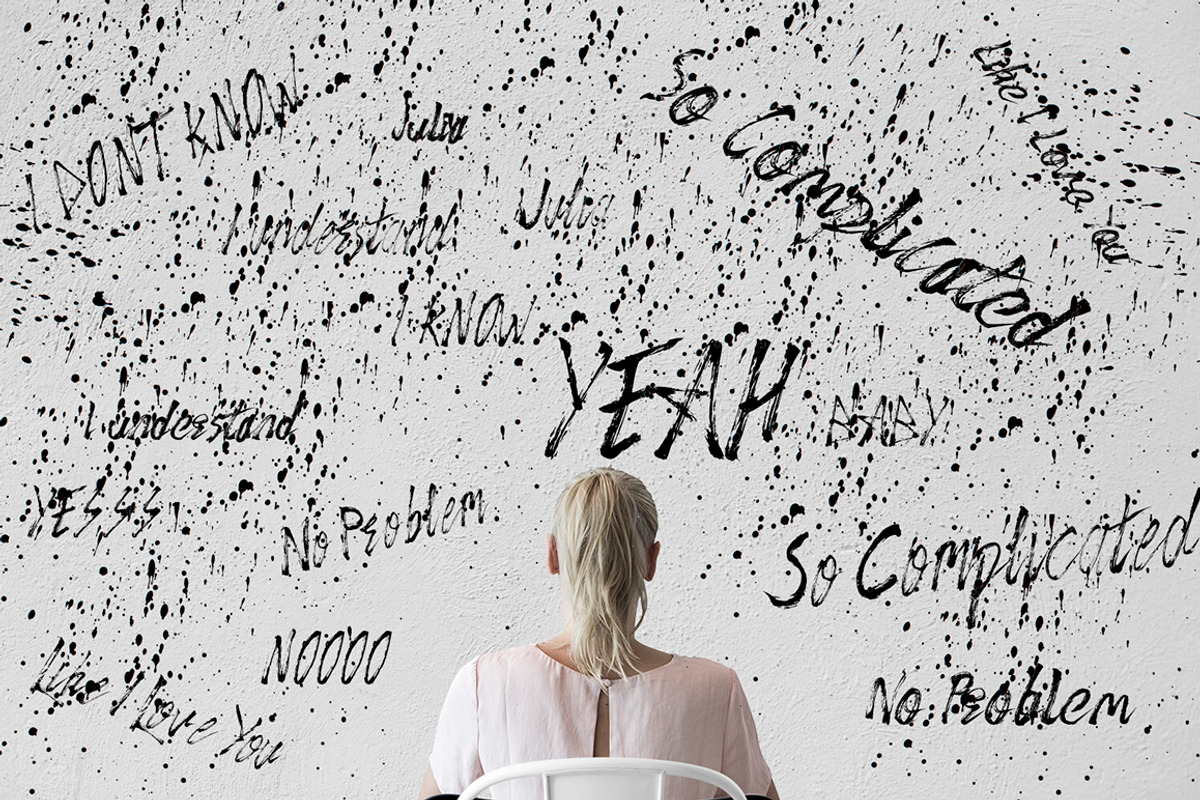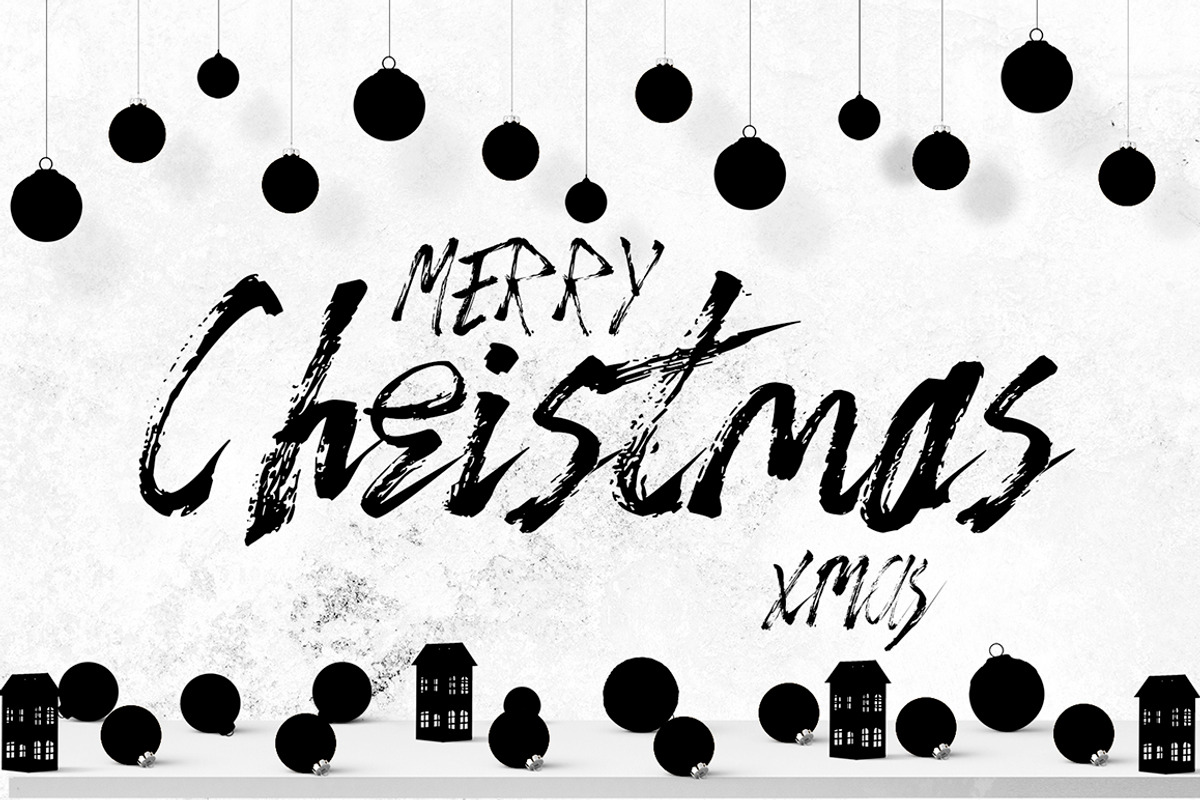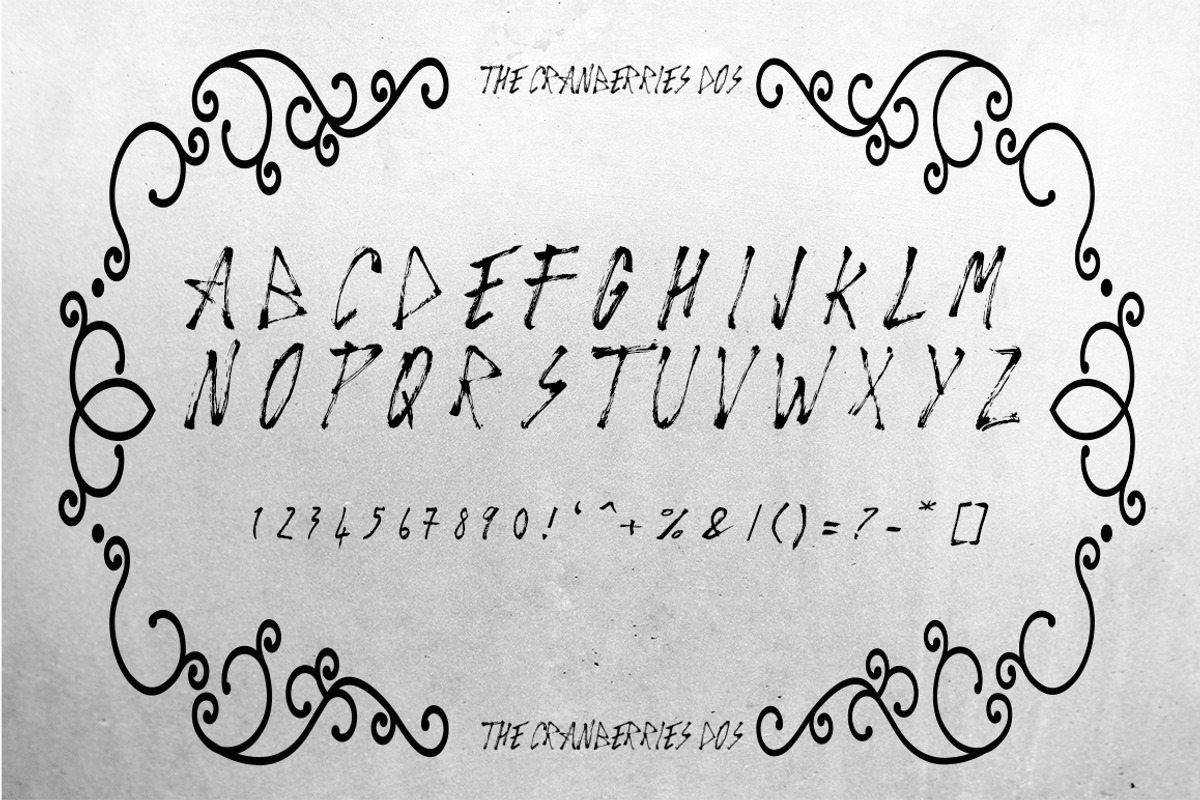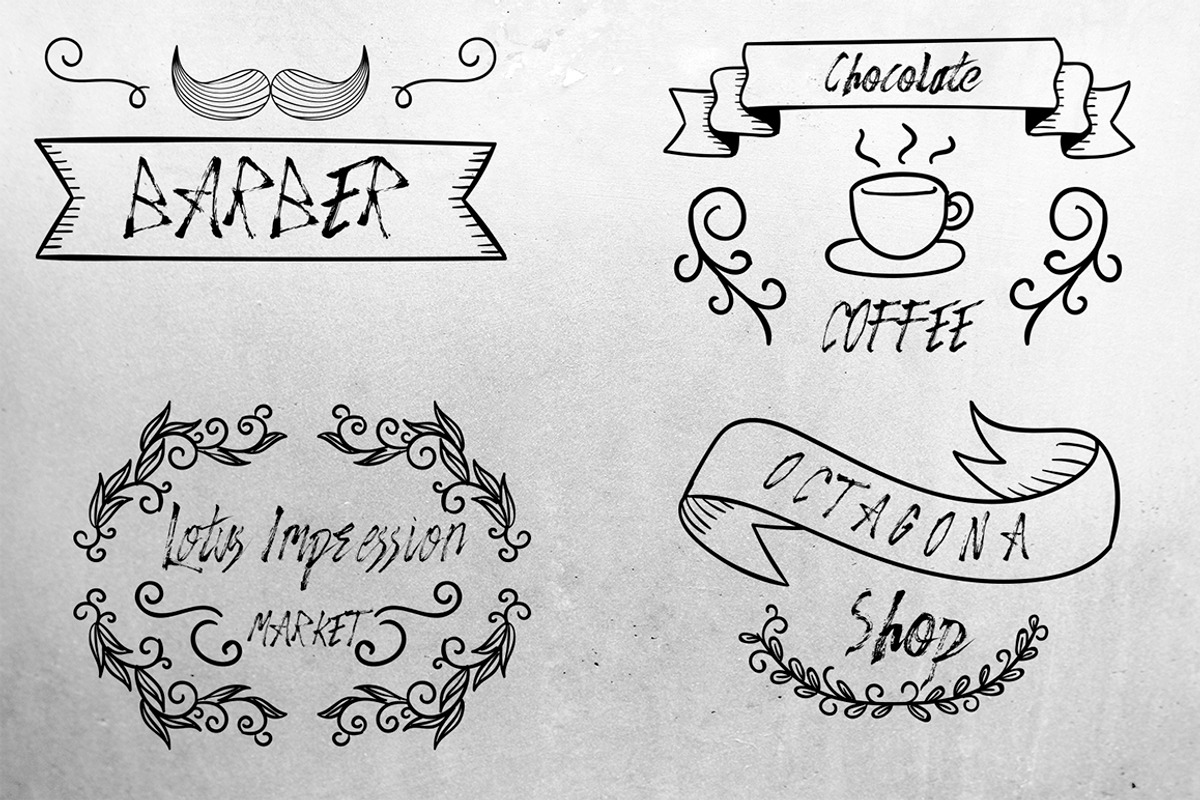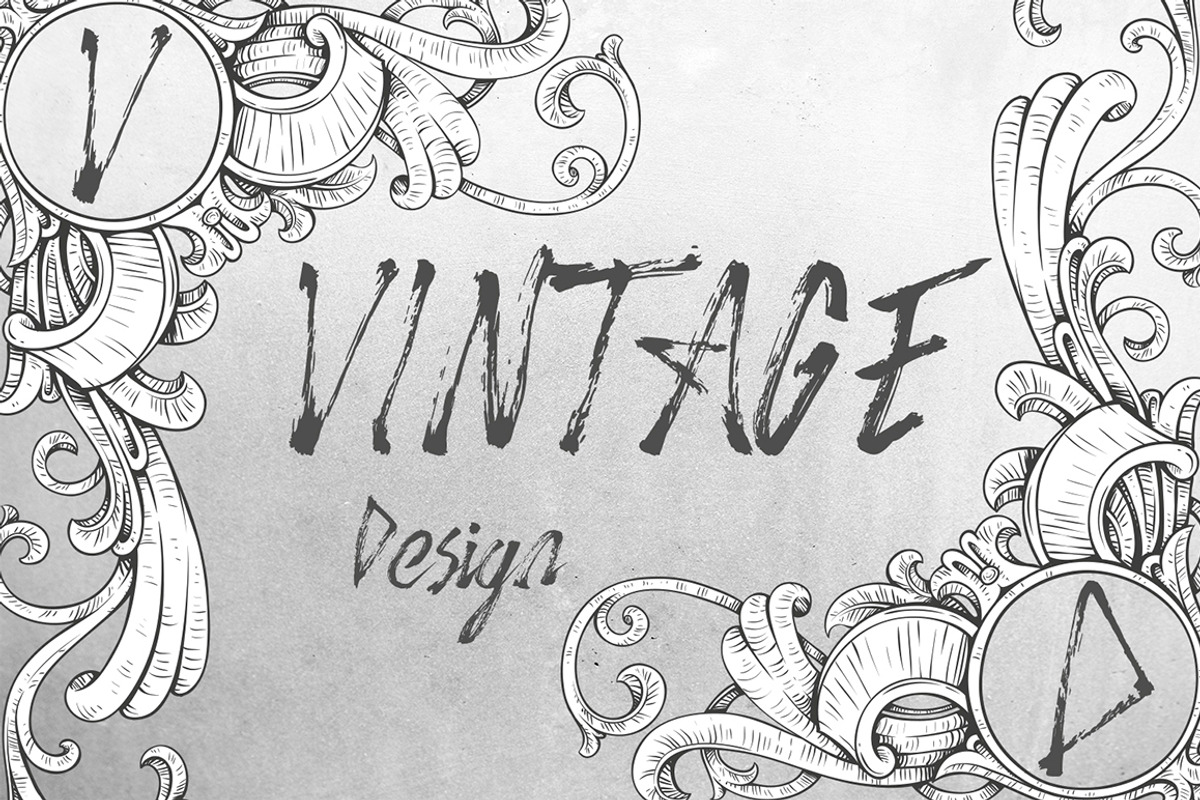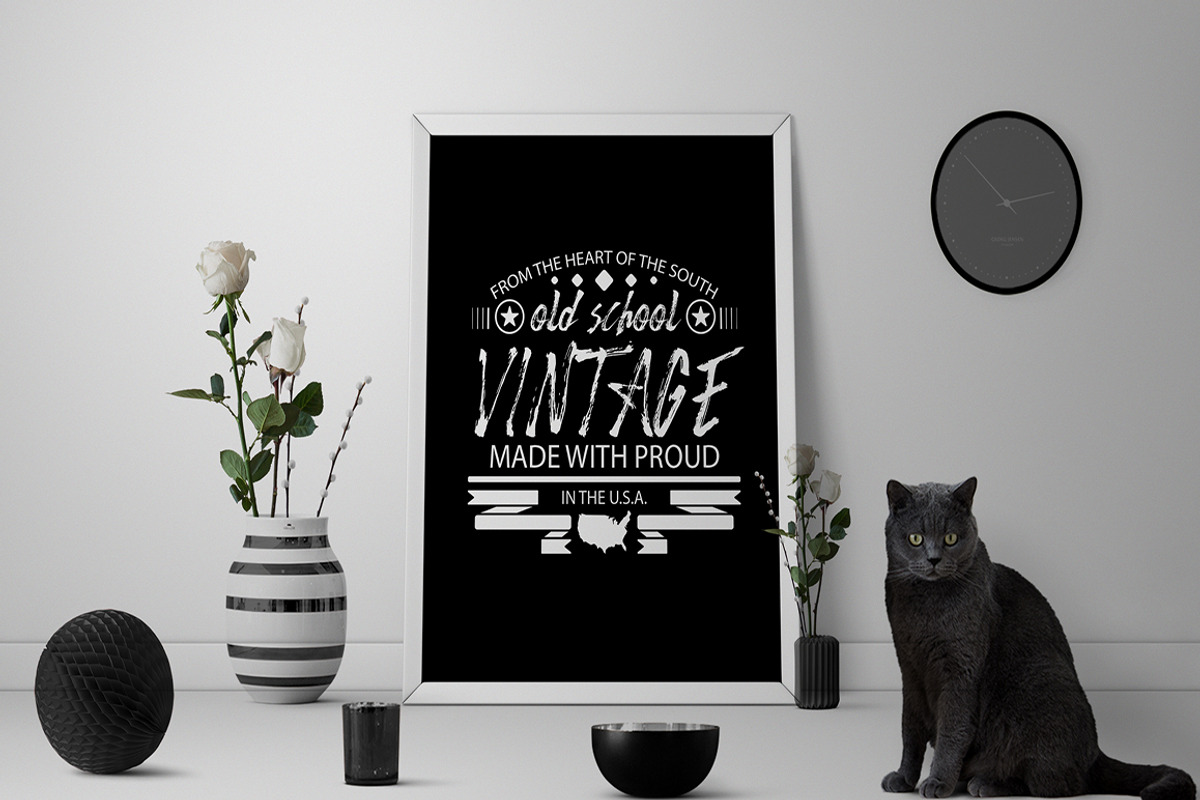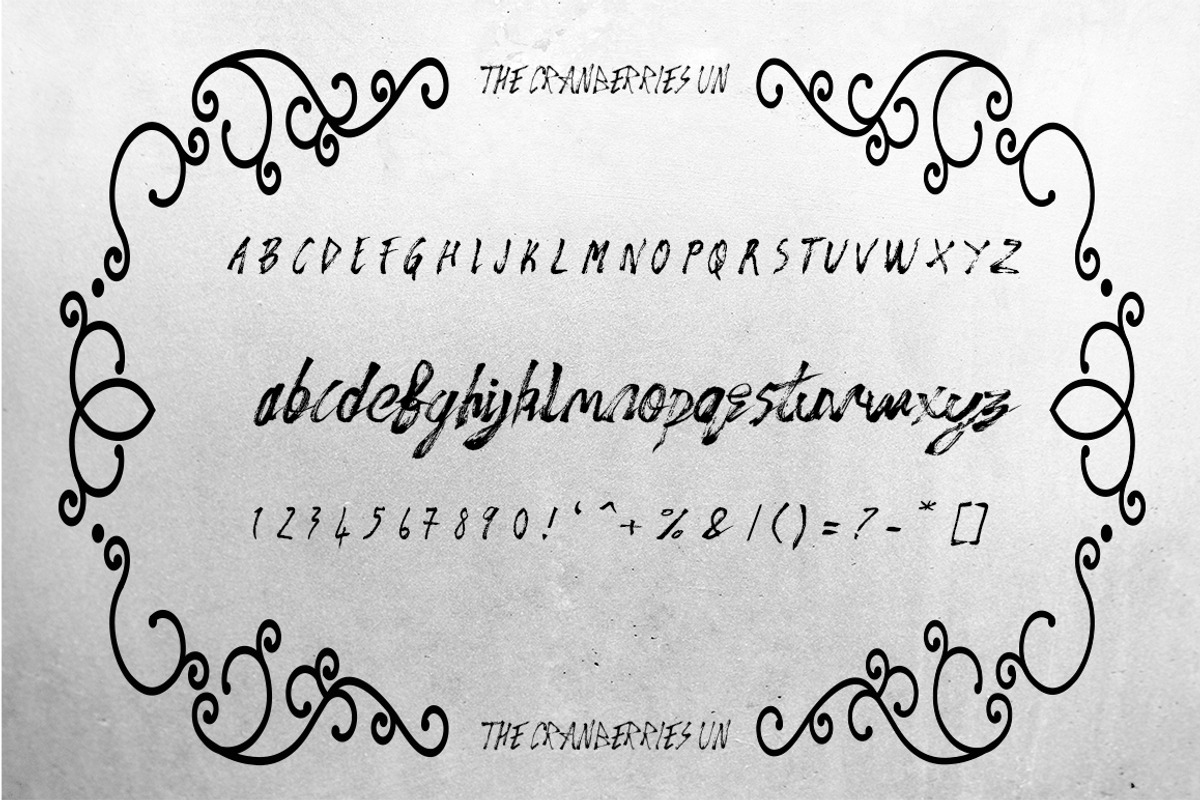
The Cranberries 3 Font
The Cranberries 3 Font by OnlyTheOriginaLs is a font selected for branding, posters, packaging, typography.
Why The Cranberries 3 Font is worth a look
The Cranberries 3 Font by OnlyTheOriginaLs fits naturally into Branding, posters, packaging, typography.